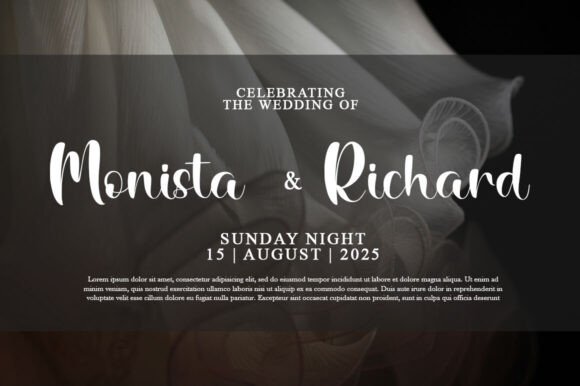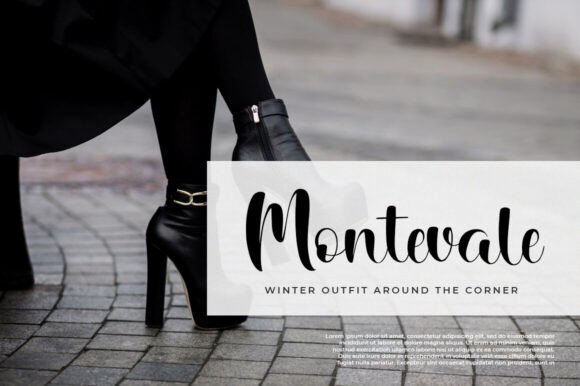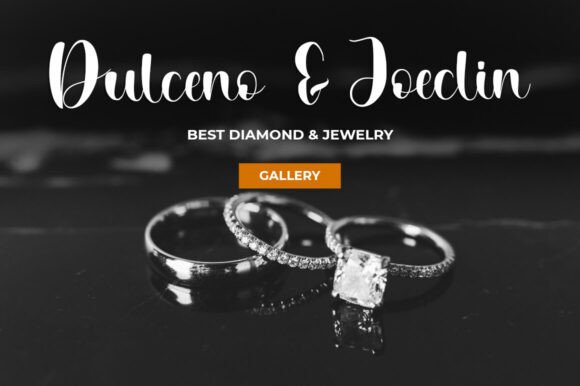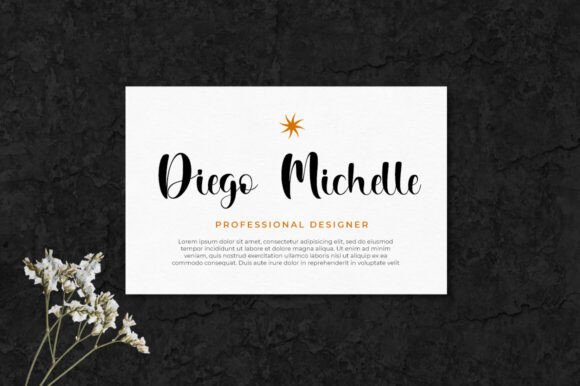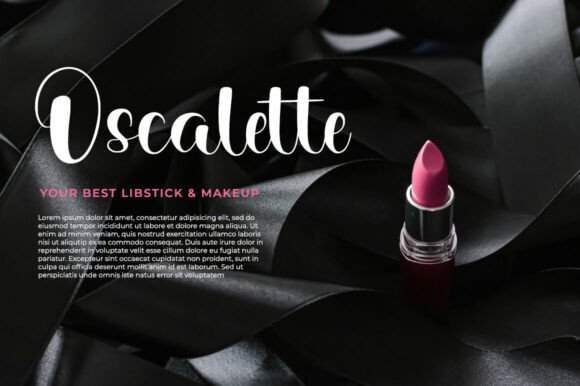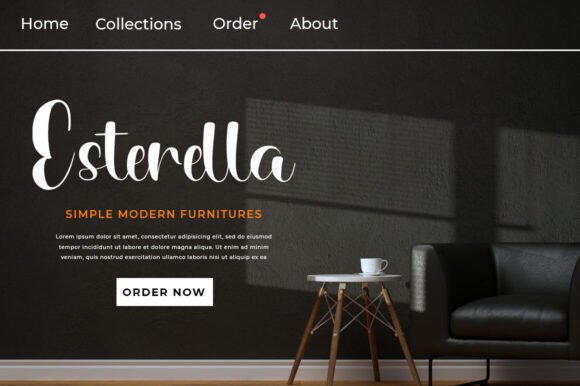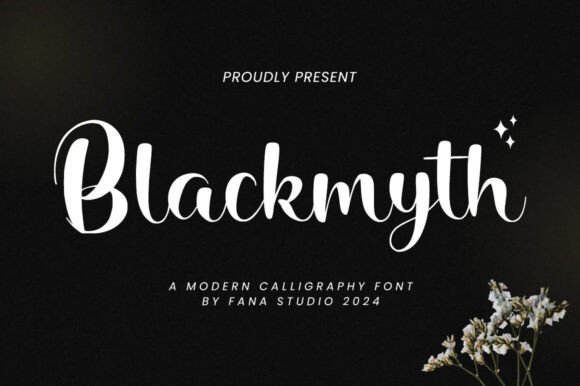
The Blackmyth Font: A Designer’s Dream Come True
I’ll never forget the time I was working on a wedding invitation project, and my client asked for a font that was elegant, yet playful. I scoured the internet, tried countless fonts, but nothing seemed quite right. That was until I stumbled upon the Blackmyth Script. It’s been a game-changer for me ever since. In this article, I’ll share my experience with this gorgeous font, its features, and how to make the most of it in your designs.
• ✨ The Blackmyth Script offers stunning typographic perfection, making it ideal for a wide range of projects, from logos and branding to invitations and social media posts.
• ✅ Its elegant, cursive strokes add a touch of sophistication to any design.
• 💫 The font’s versatility allows it to be used for both formal and informal projects.
While the Blackmyth Script is an amazing font, there are a few things to keep in mind:
• ⚠️ Some users might find the font’s script style a bit challenging to read in large blocks of text.
• 🤔 The font’s OpenType features might require a bit of practice to master.
The Designer Inspiration Behind Blackmyth Font
The Blackmyth Script was designed with the intention of creating a font that exudes elegance and sophistication. The designer aimed to craft a font that would be perfect for a wide range of projects, from formal events to creative branding. The result is a font that is both versatile and beautiful.
Q: What type of projects is the Blackmyth Script suitable for?
A: The Blackmyth Script is perfect for a wide range of projects, including logos and branding, invitations, stationery, wedding designs, social media posts, advertisements, product packaging, and more.
Q: Is the Blackmyth Script easy to read?
A: The Blackmyth Script is a cursive font, and while it’s beautiful, it may be challenging to read in large blocks of text. However, it’s perfect for short texts, such as headings and titles.